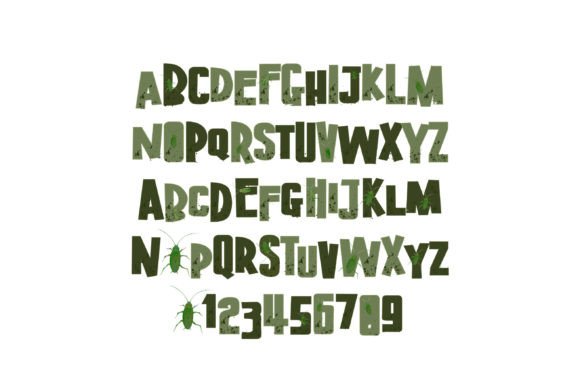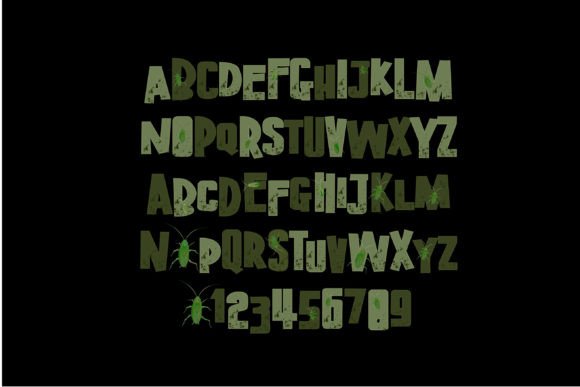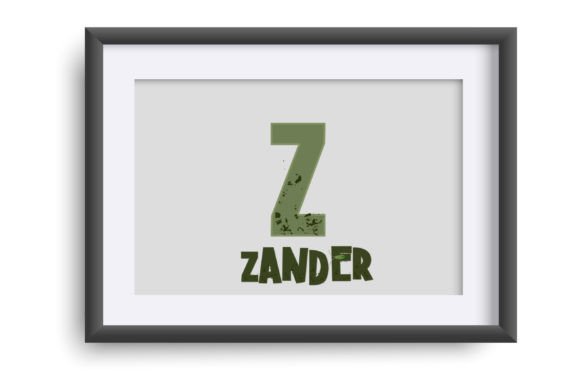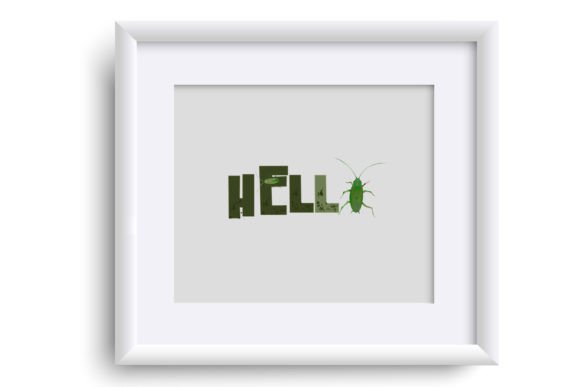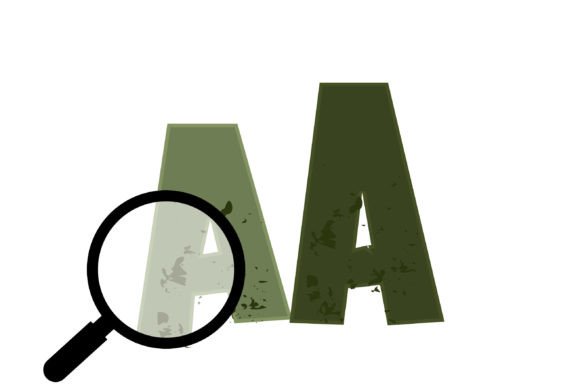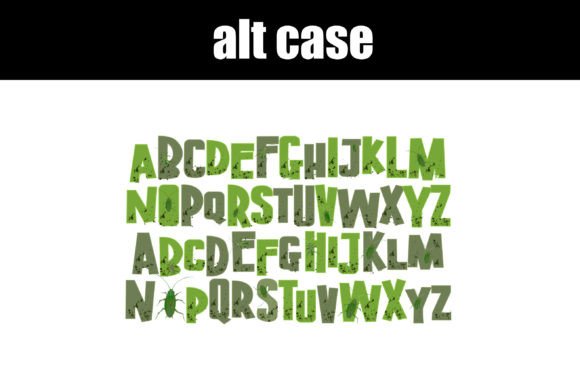
The Quest for the Perfect St. Patrick’s Day Font: Enter Green Beetles
I still remember the design project that led me to discover the Green Beetles font. It was a St. Patrick’s Day-themed invitation for a client’s party, and I was determined to make it stand out. As I scrolled through font after font, nothing seemed quite right – until I stumbled upon Green Beetles. Its playful, modern shapes and attractive elements instantly captured the festive spirit I was looking for. In this article, I’ll share my experience with Green Beetles, including what I love about it, some minor quirks, and a step-by-step guide on how to make the most of its features.
An Honest Review of Green Beetles Font
What I Love About Green Beetles ✨
- ✅ Unique and festive design: Green Beetles perfectly embodies the fun and playful vibe of St. Patrick’s Day, making it ideal for projects that require a celebratory touch.
- ✅ Modern and versatile: Whether you’re working on a digital project or a craft, Green Beetles can add a fresh and modern twist to your design.
Some Minor Quirks 🤔
While Green Beetles is an excellent font, there are a few things to keep in mind:
- ⚠️ Limited use cases outside of festive themes: While Green Beetles is versatile, its design is specifically tailored for St. Patrick’s Day or Irish-themed projects. It might not be the best fit for more formal or non-festive designs.
- ⚠️ Some characters may require manual adjustment: As with any font, you might need to tweak certain characters to ensure they fit perfectly in your design.
The Story Behind Green Beetles
Green Beetles was designed with the intention of capturing the playful spirit of St. Patrick’s Day. The designer aimed to create a font that was not only festive but also versatile enough to be used in various projects, from digital designs to handmade crafts. The result is a modern, unique font that adds a fun and celebratory touch to any design.
Q: Does Green Beetles support OpenType features?
A: Yes, Green Beetles supports OpenType features, allowing you to access a range of glyphs, swashes, and stylistic alternates to enhance your design.